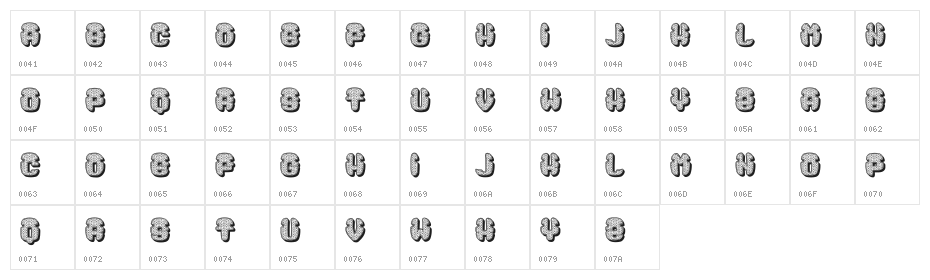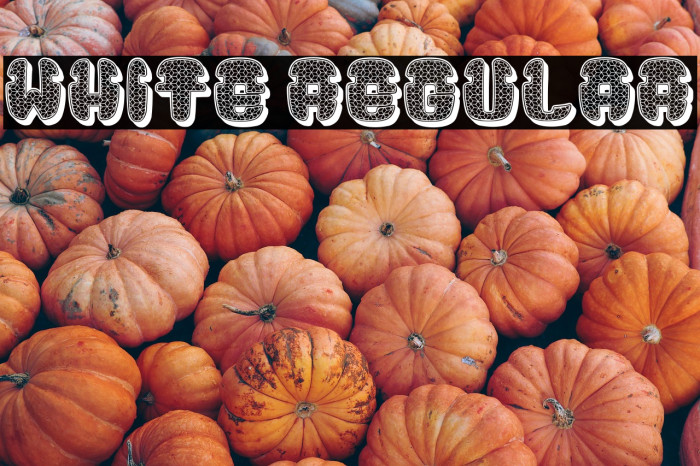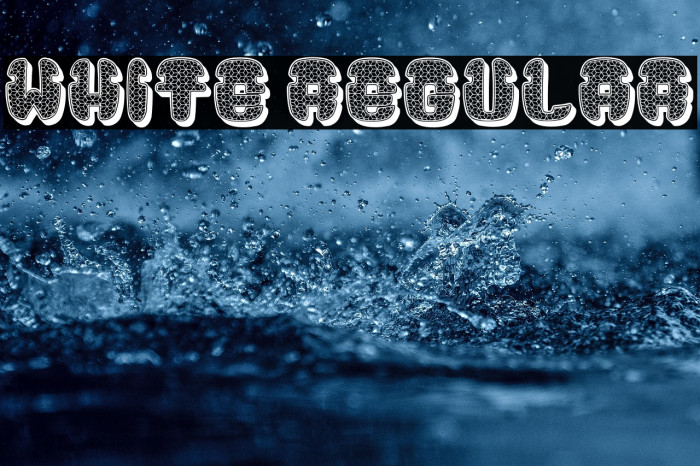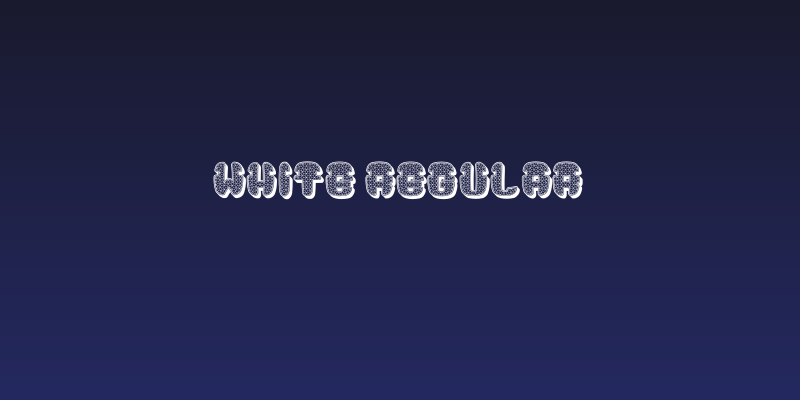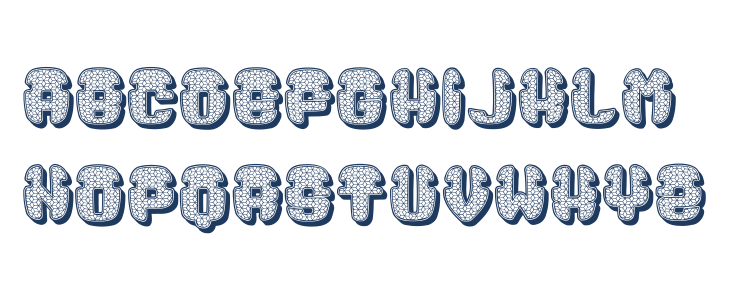
White Regular Font
White Regular Description
This font features a bold, playful style with a three-dimensional effect. Each character is filled with a dotted pattern, adding a unique texture that makes the letters stand out. The thick outlines enhance the 3D appearance, giving the font a cartoonish and whimsical feel. The rounded edges and bubbly shapes contribute to its friendly and approachable look, making it ideal for creative and fun projects. The font's distinct style is perfect for capturing attention and conveying a sense of joy and excitement.
| Overall Style | Playful, Whimsical |
| Proposed Projects | Ideal for children's books, comic titles, playful branding, and party invitations. |